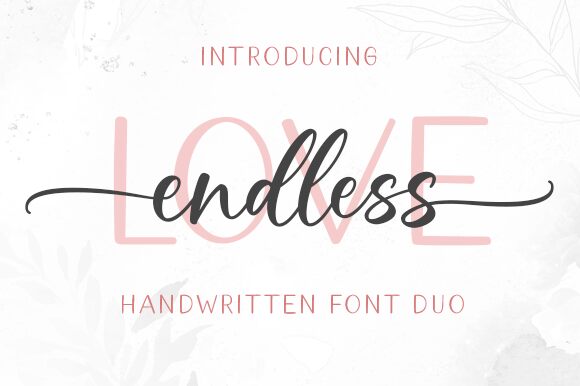
Endless
Endless is a quality handwritten font designed by Graphix Line Studio. Its semi-light weight makes it perfect for projects that require an elegant, yet approachable touch. Endless is versatile and can be used for a variety of projects such as wedding invitations, fashion branding, and product packaging. Its flowing strokes create a sense of timelessness and sophistication that will elevate any design. Whether you're looking to add a touch of whimsy to your next project or simply want to convey elegance, Endless is the perfect choice for any design that requires a handwritten touch.